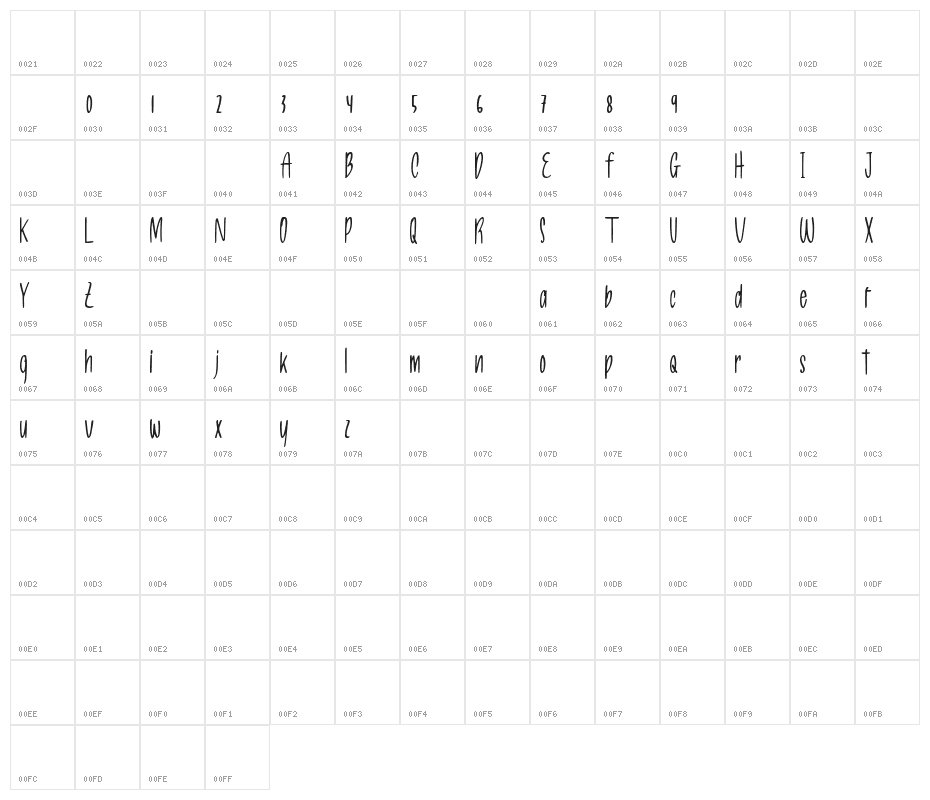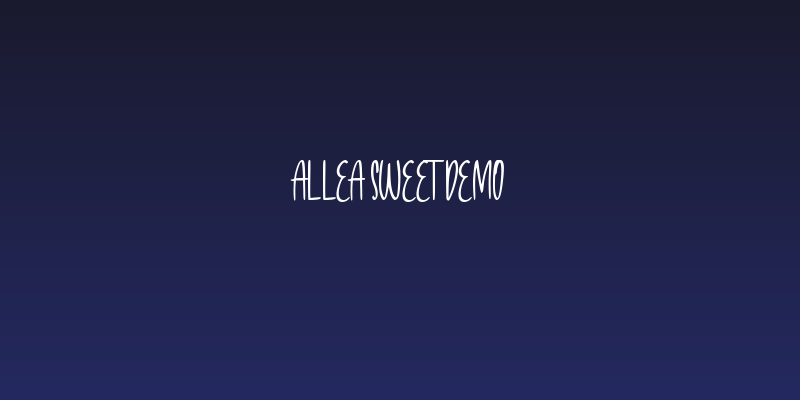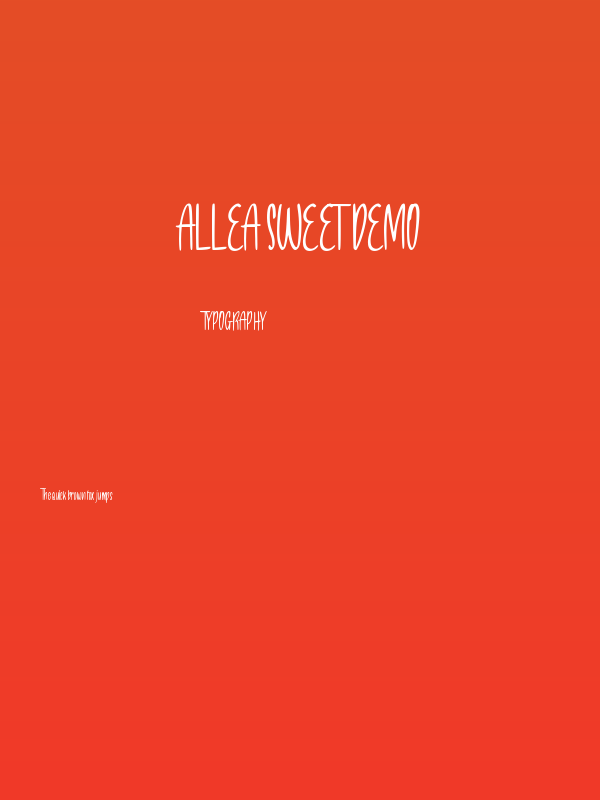
Allea Sweet Demo Font
Allea Sweet Demo Description
This font features a playful and handwritten style, characterized by its tall, narrow letters with a slight slant, giving it a casual and friendly appearance. The strokes are smooth and consistent, with rounded edges that enhance its approachable feel. The uppercase and lowercase letters maintain a uniform height, contributing to its cohesive look. The numerals are equally stylized, matching the overall aesthetic of the alphabet. This font is versatile, suitable for projects that require a personal touch, such as invitations, greeting cards, or branding materials that aim to convey warmth and creativity.
| Proposed Projects | Ideal for invitations, greeting cards, branding materials, and creative projects. |